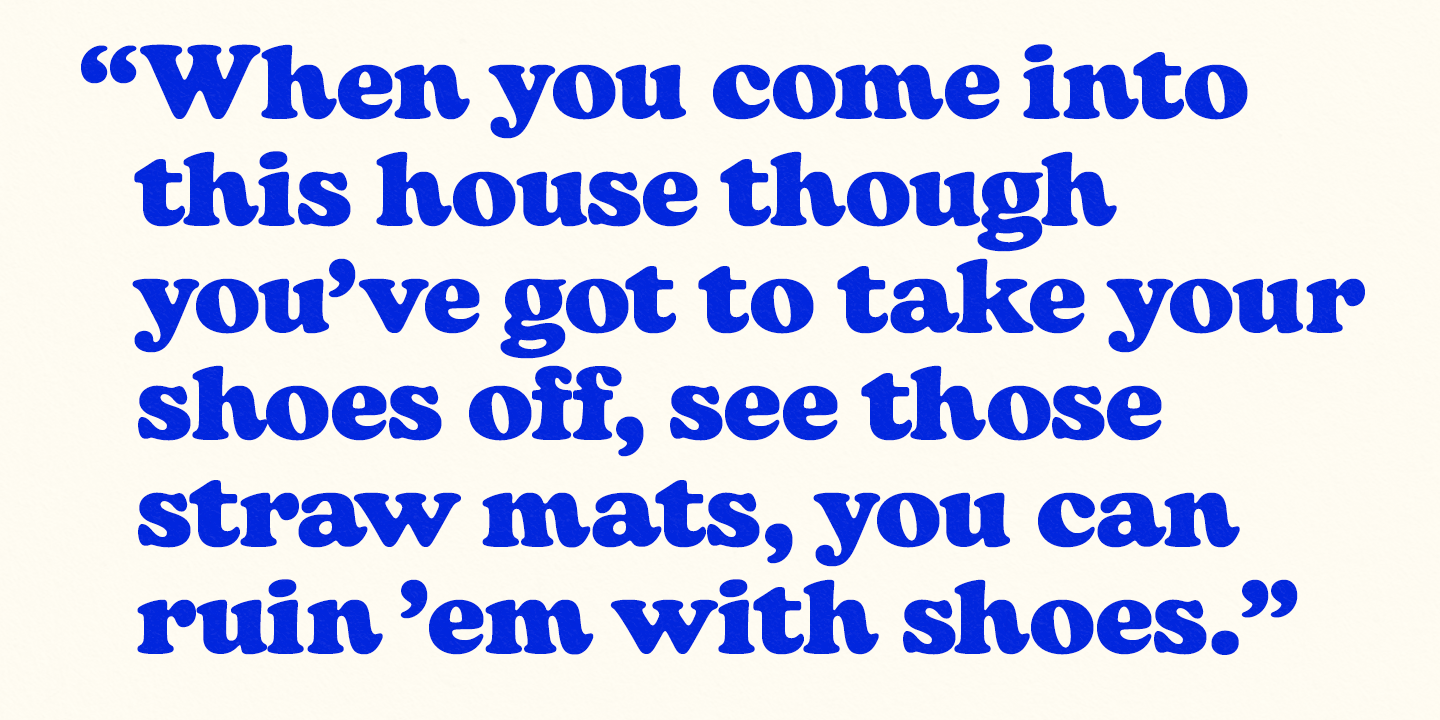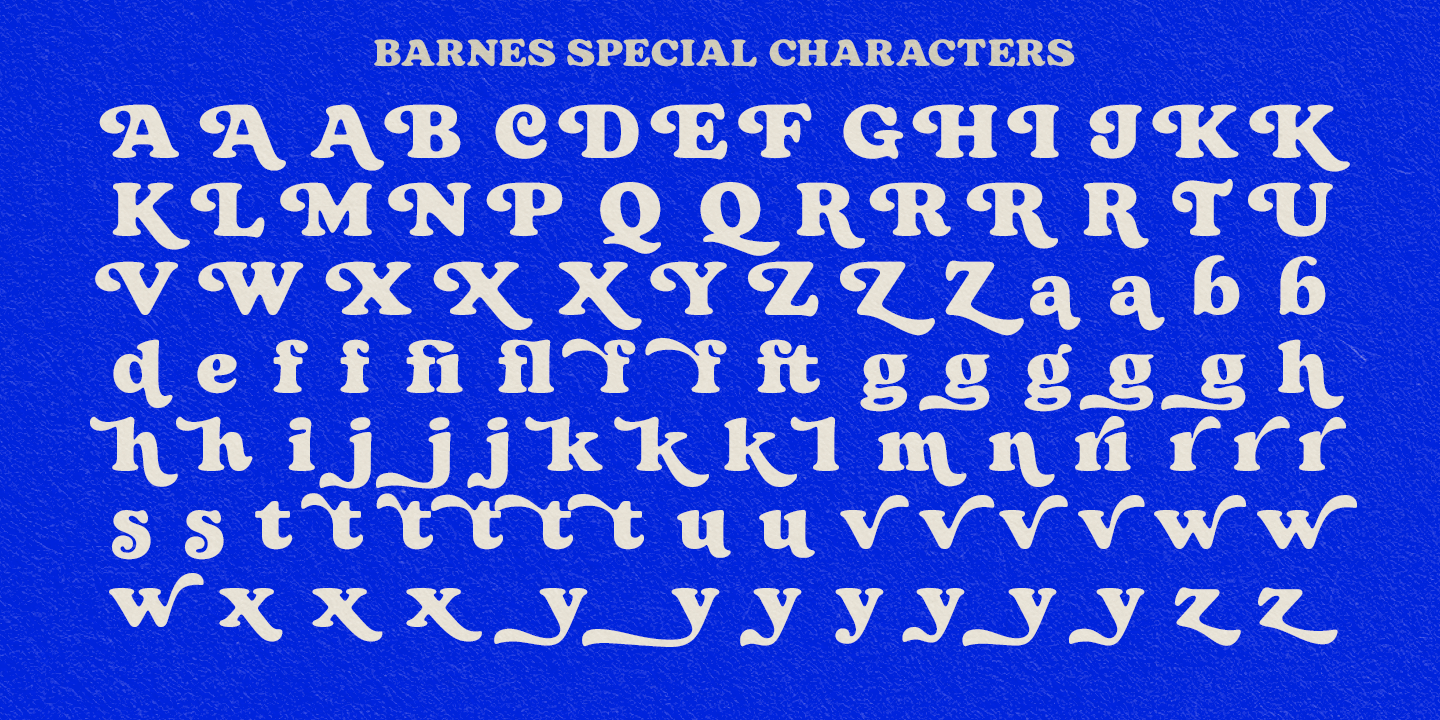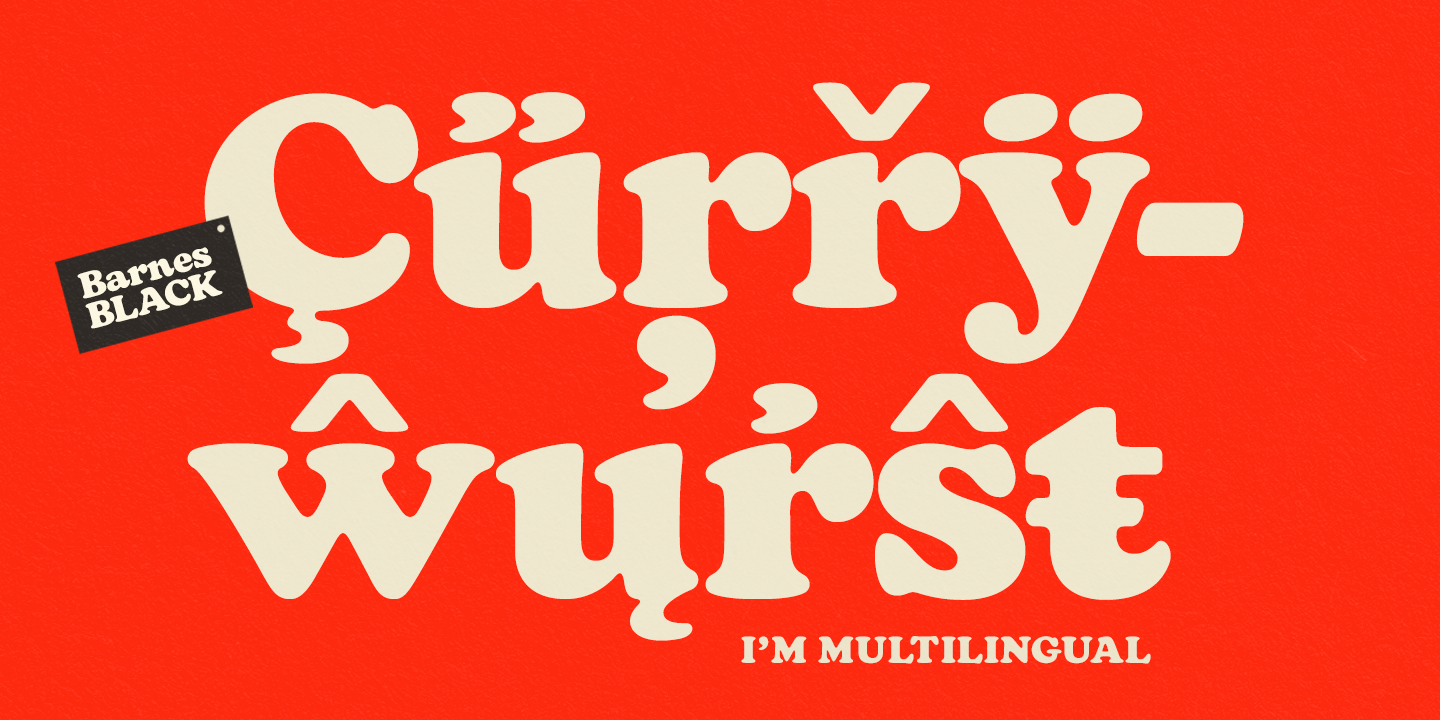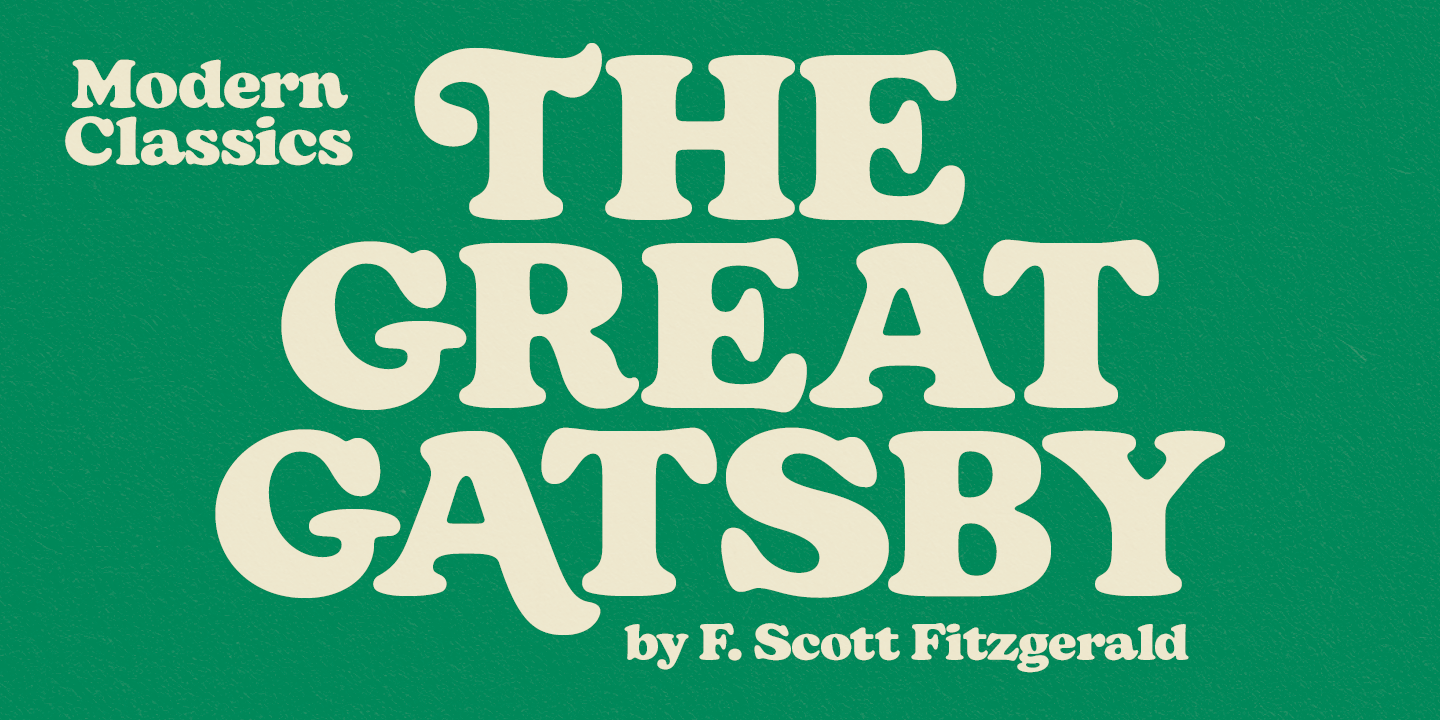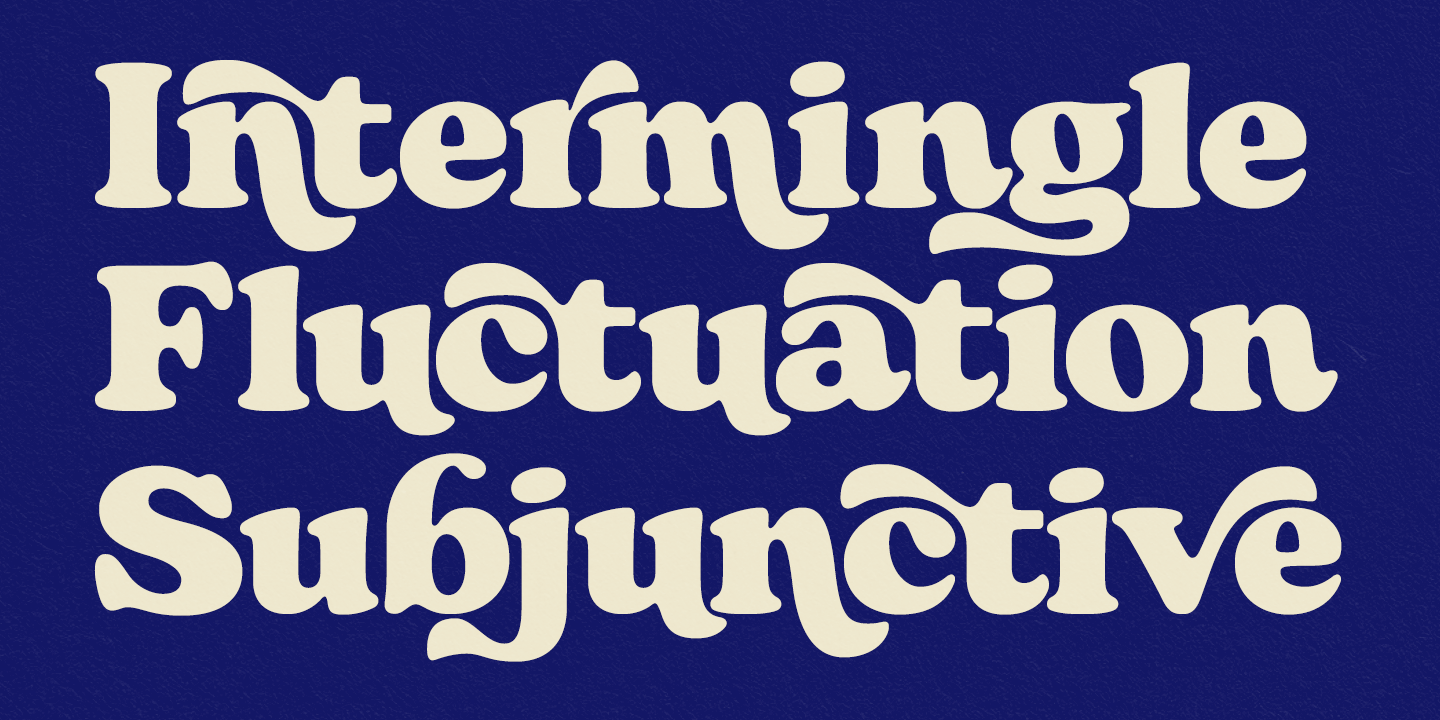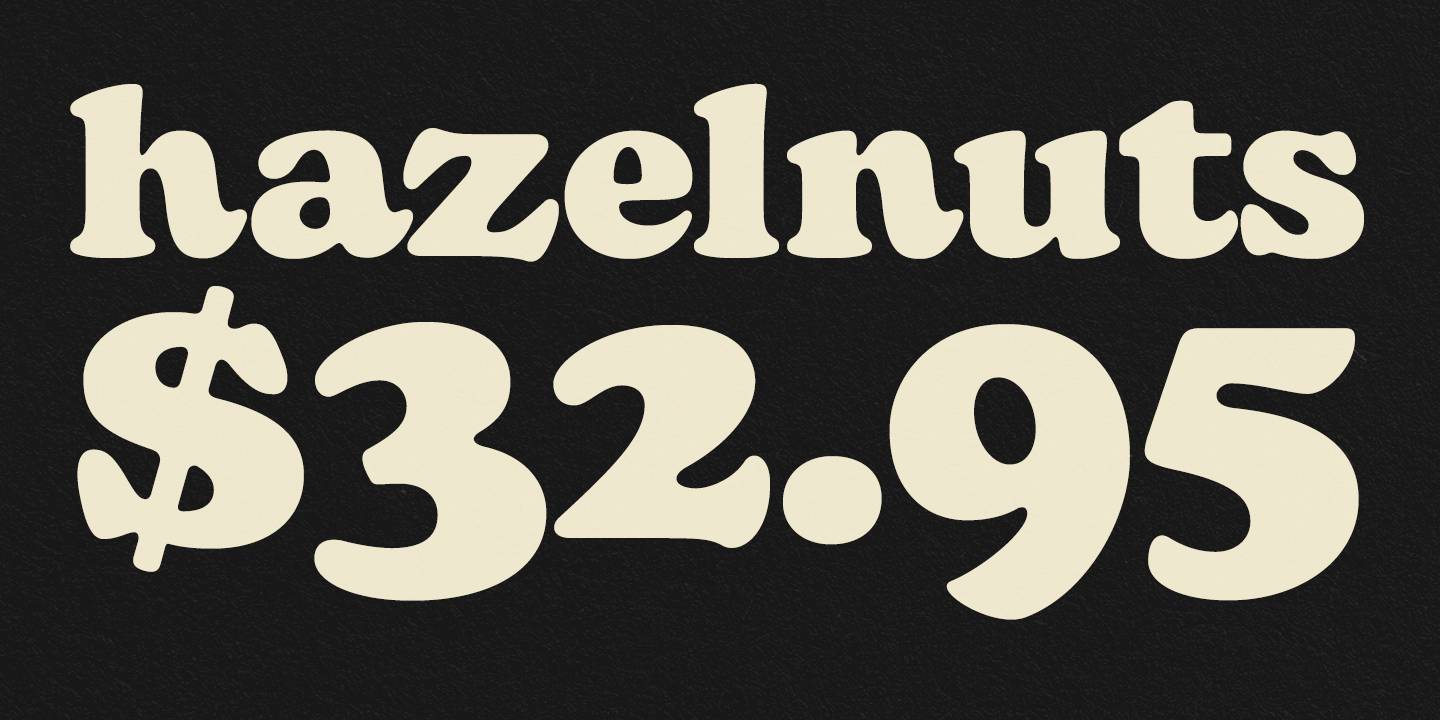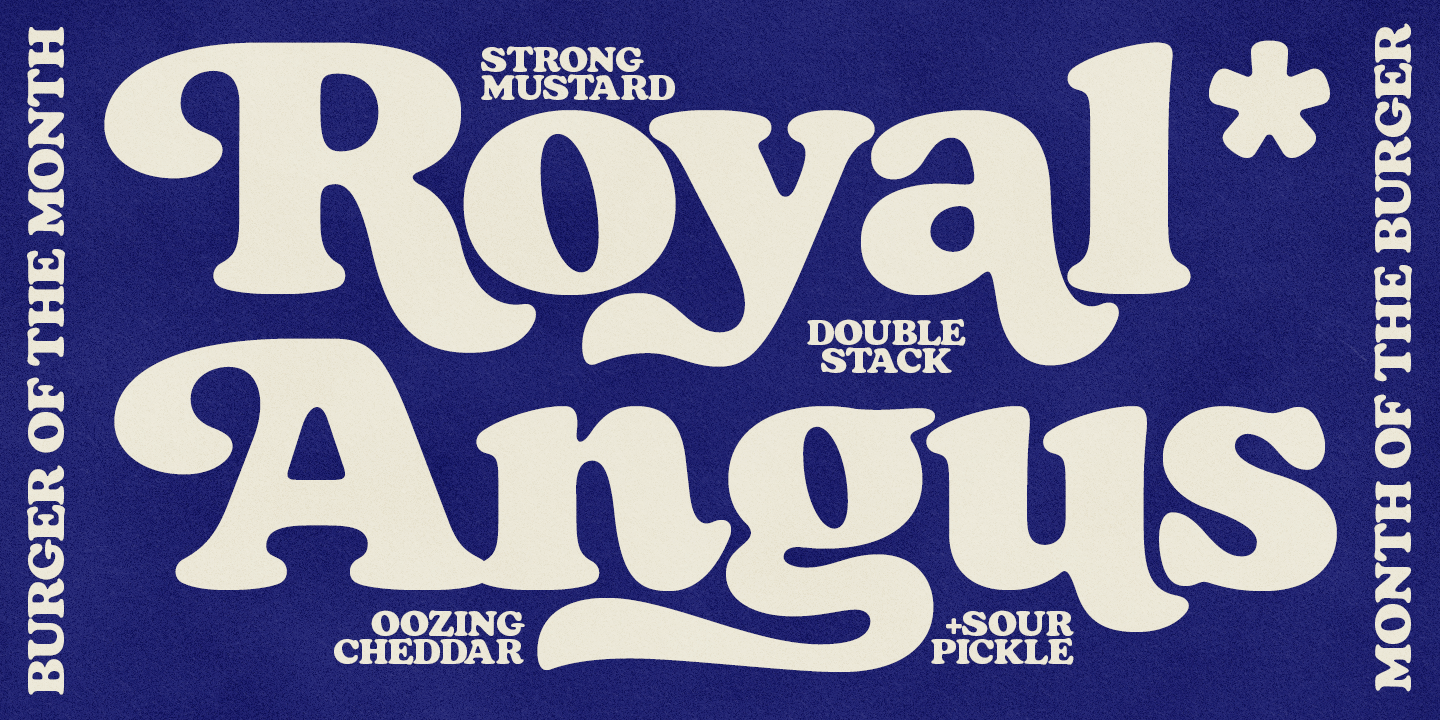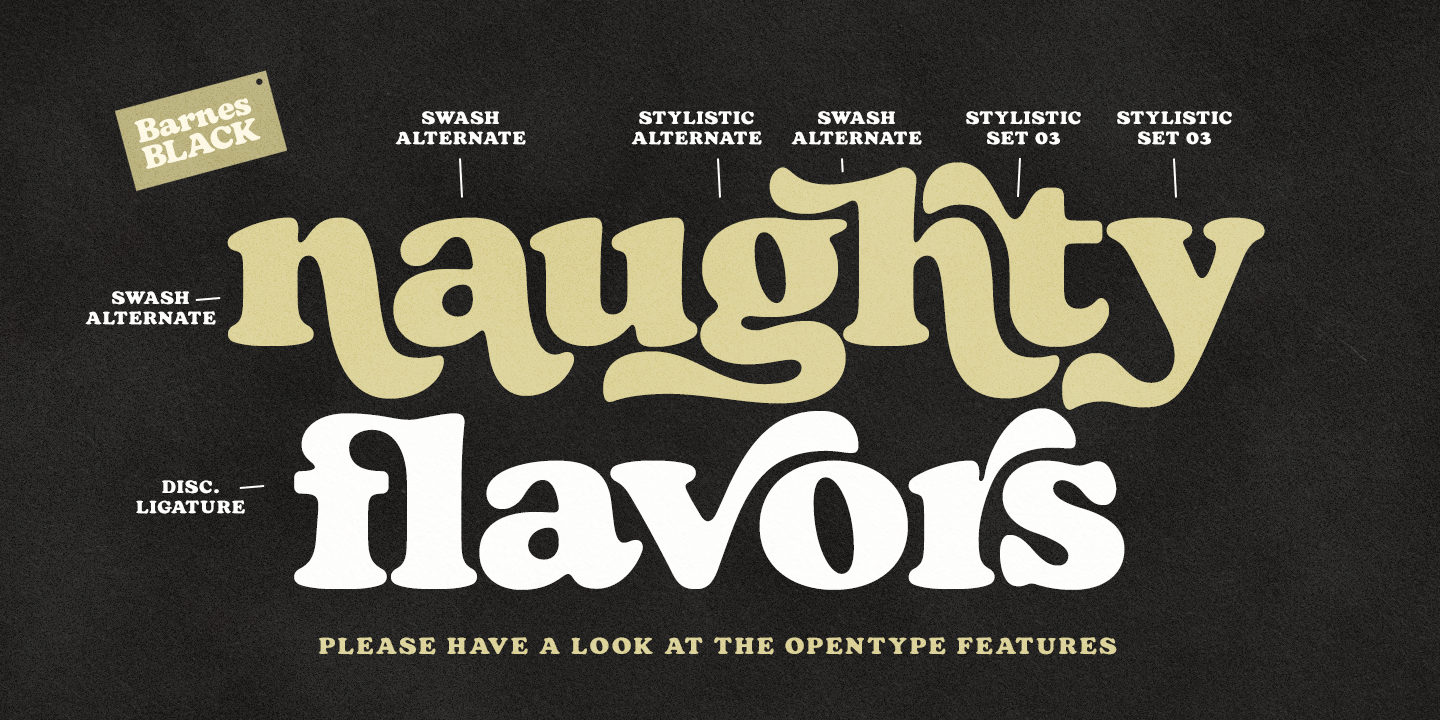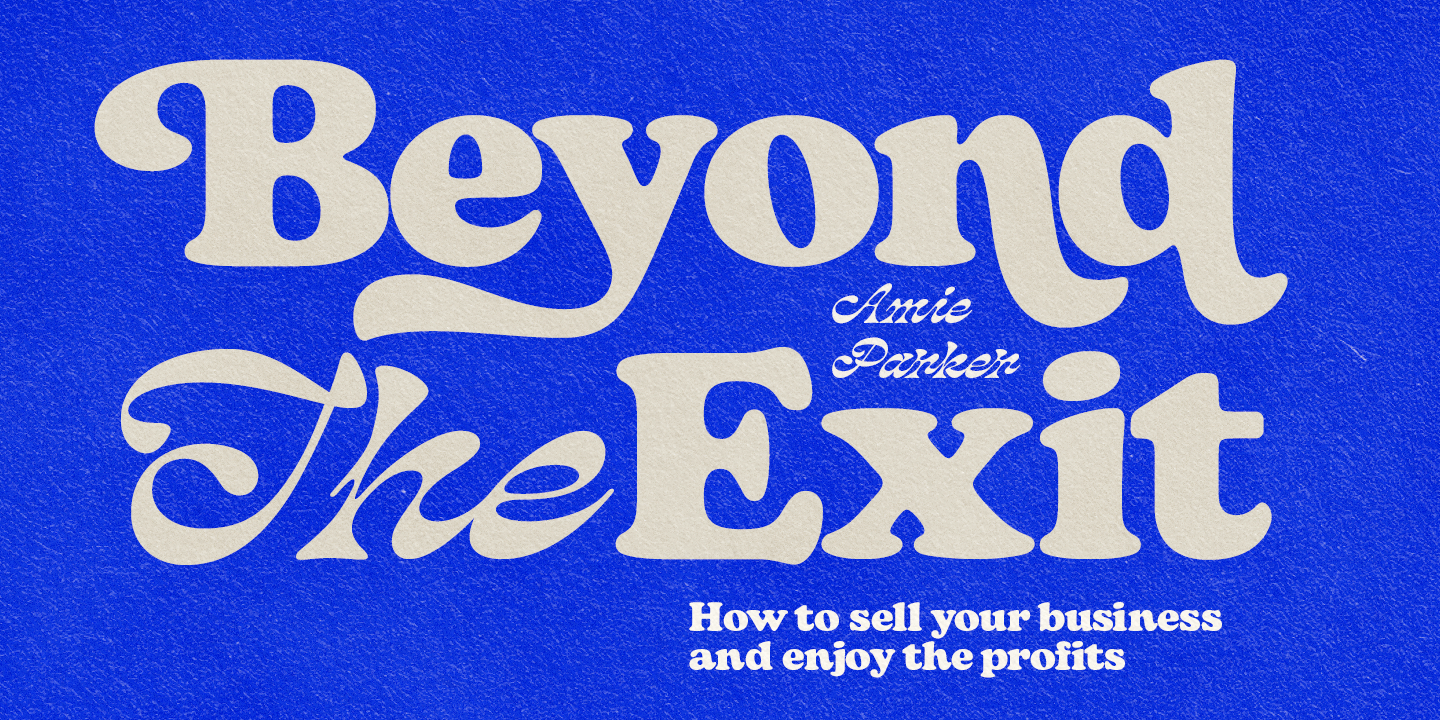
Barnes Black
Inspired by the over hundred years old evergreen classic, Cooper Black, Barnes is a plump serif with plenty of character.
Being less rigid than its inspirer, Barnes combines a blend of familiar nostalgia with modern forms.
Barnes is best used for product and packaging design and any kind of display purposes from music business to restaurant menus and from t-shirts to band logos.
Barnes is equipped with 116 Alternate Characters set in Swash, Stylistic and Titling Alternates + some extras in Stylistic Sets 1-3. Barnes has Old Style Numerals (and currency symbols) as standard and Lining versions available via OpenType features.